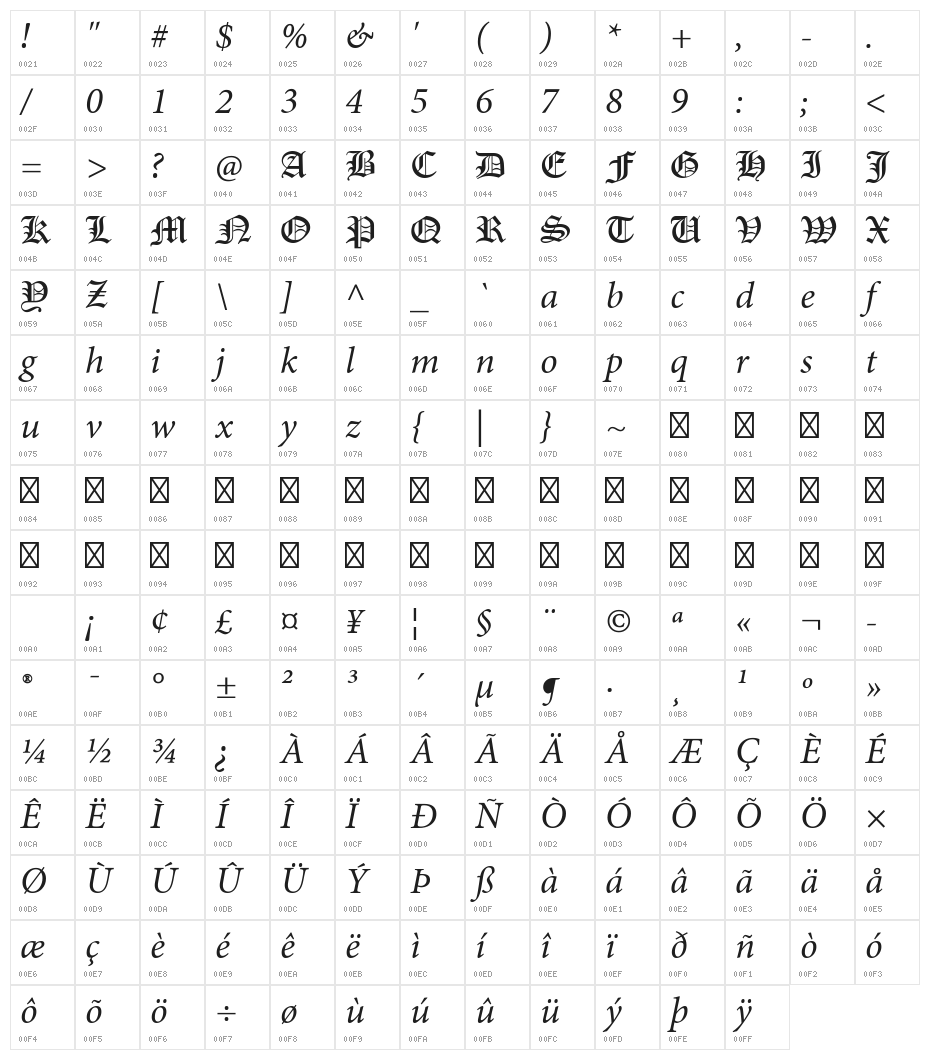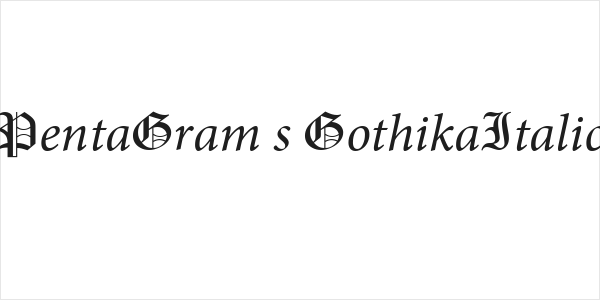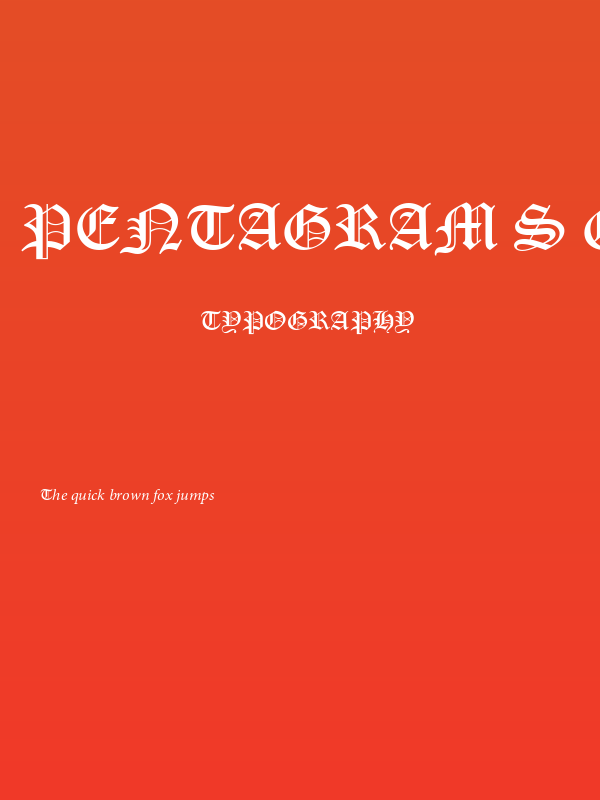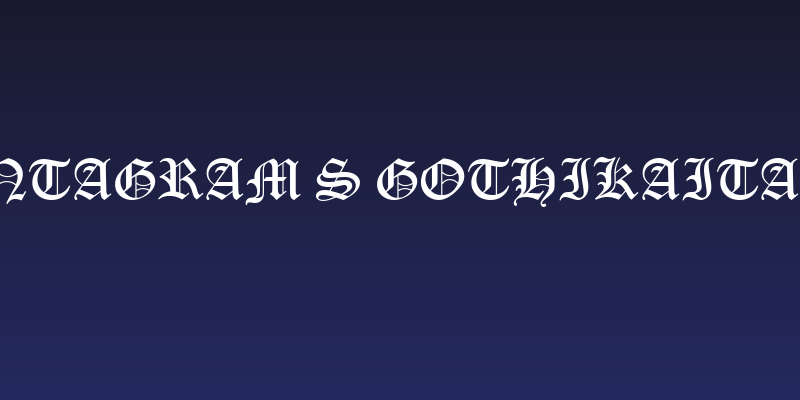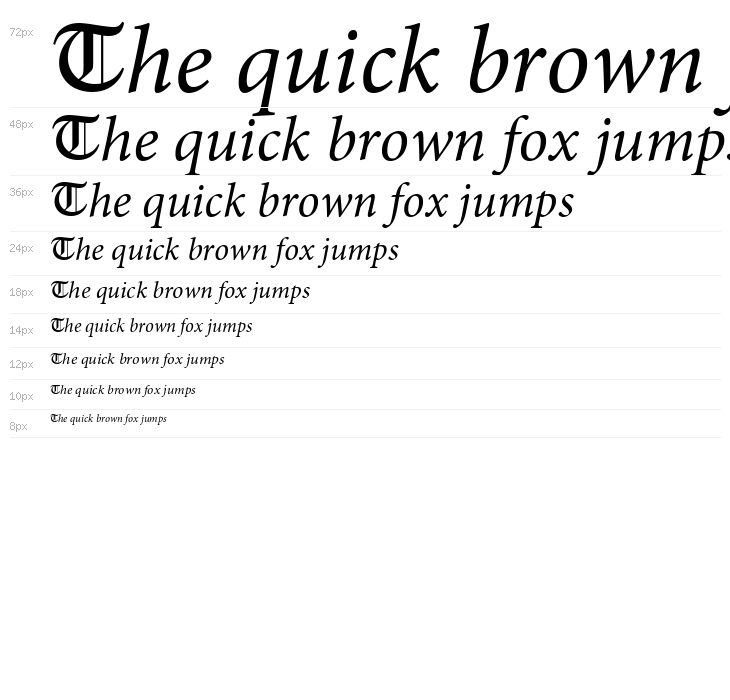
PentaGram s GothikaItalic Font
PentaGram s GothikaItalic Description
This font features a striking blend of Gothic and Italic styles, creating a unique and dramatic appearance. The uppercase letters are designed with intricate Gothic elements, showcasing sharp edges and ornamental details that evoke a sense of medieval elegance. In contrast, the lowercase letters are more fluid and italicized, offering a smoother and more contemporary look. The numerals maintain a consistent style with the lowercase letters, ensuring readability while retaining the font's distinctive character. Special characters are thoughtfully designed to match the overall aesthetic, making this font versatile for various creative applications.
| Proposed Projects | Ideal for projects requiring a dramatic and historical touch, such as book covers, posters, and branding for luxury or vintage products. |